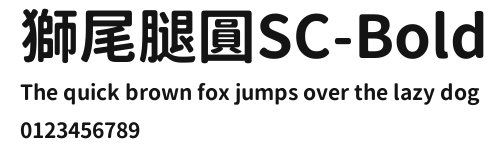
• Font Name: 獅尾腿圓SC-Bold
• Full Font Name: 獅尾腿圓SC-Bold
About 獅尾腿圓SC-Bold.ttf
獅尾腿圓SC-Bold.ttf is a modern, elegant sans-serif font designed for ultimate readability and visual harmony. Perfect for branding, headlines, web design, and print materials.